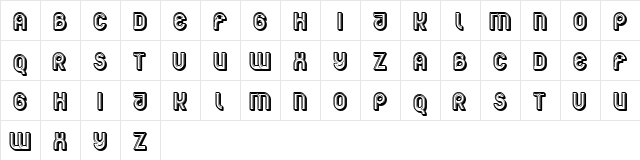
Pancake Extravagant Inverted Regular
Design Context for Pancake Extravagant Inverted Typeface
Pancake Extravagant Inverted is a composed and adaptable typeface that performs quietly and consistently across a wide range of design contexts.